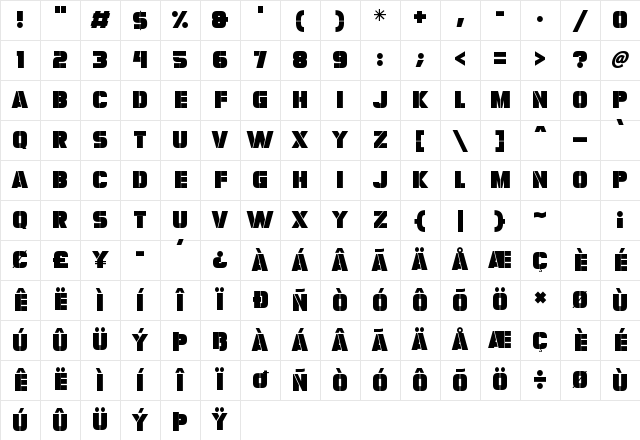
Bulletproof Regular Free Font
Bulletproof Regular
Bulletproof Family
Design Context for Bulletproof
Bulletproof is a composed and adaptable typeface that performs quietly and consistently across a wide range of design contexts.